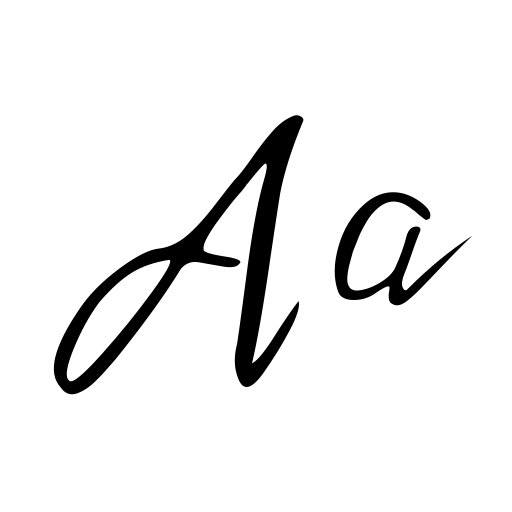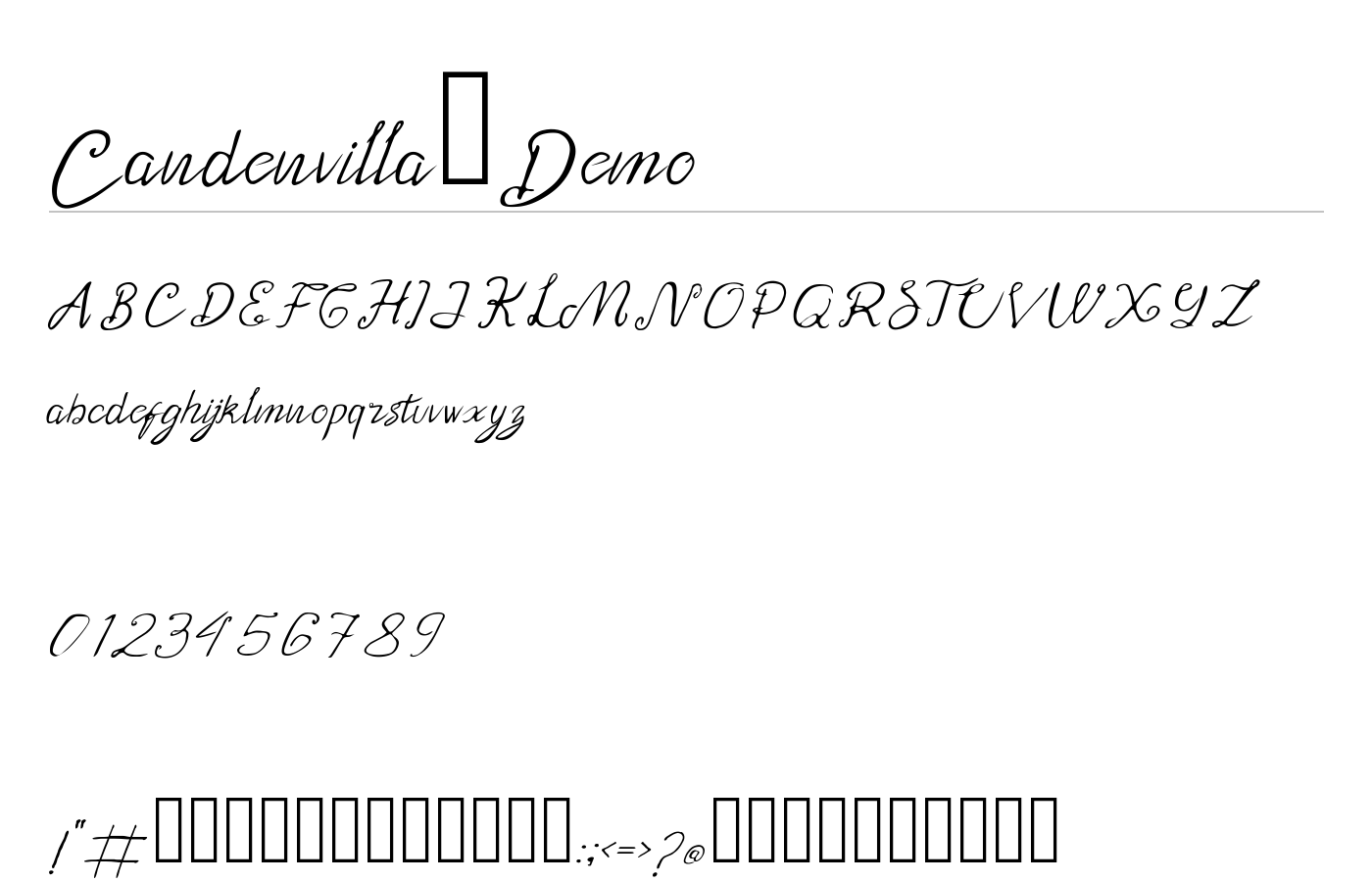
Candenvilla_Demo is an elegant script font characterized by its delicate, flowing strokes and refined calligraphic style. With its thin weight and graceful letterforms, it conveys a sophisticated and feminine feel, making it ideal for wedding invitations, luxury branding, and stylish headlines where a touch of classic charm is desired. Its smooth, connected characters create a sense of movement and personalization, perfect for projects that require a refined, artistic touch.
Candenvilla_Demo Font
About Candenvilla_Demo Font